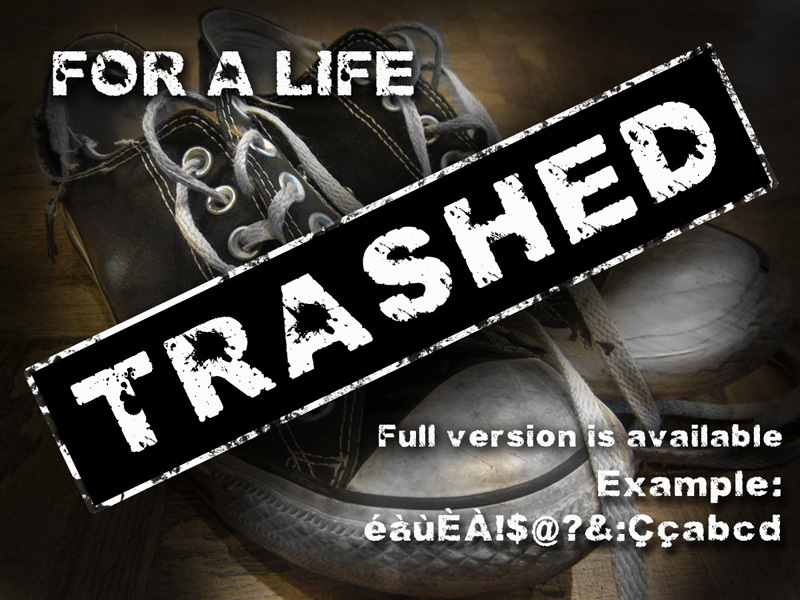
Trashed Light is a free eroded display font with broad, forceful letterforms and an aggressively damaged surface. Dense scratches and chipped patches break through each character in uneven clusters. The wear looks scraped and battered.
Its rough texture can echo distressed photography or photocopied artwork across music posters and album packaging. Streetwear graphics also suit the lettering because the blunt shapes resemble weathered marks on industrial signs. In editorial covers, the damaged areas can merge with torn-paper collage and gritty urban imagery, turning the words into part of the artwork rather than a clean typographic layer.